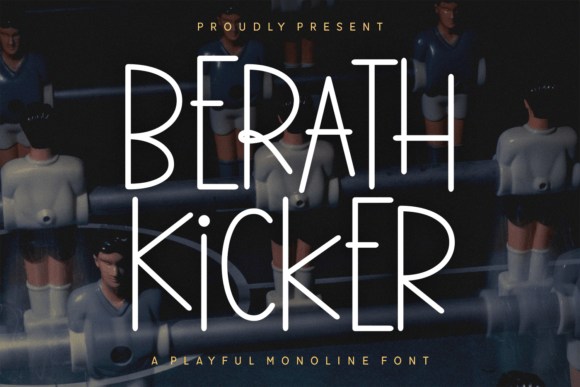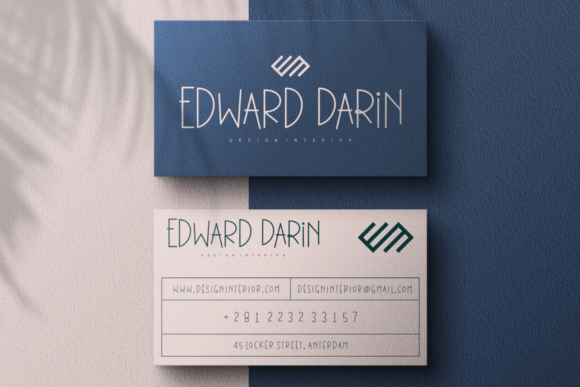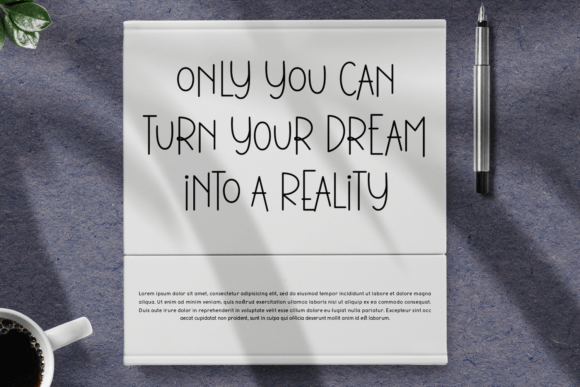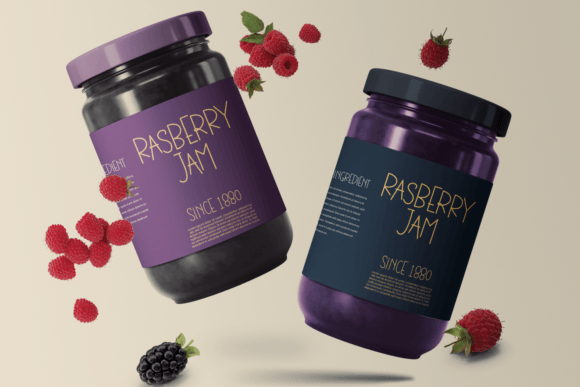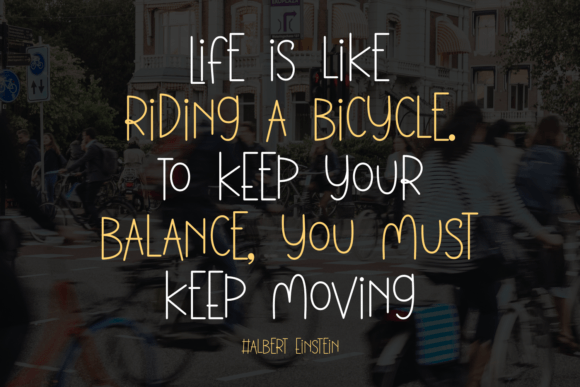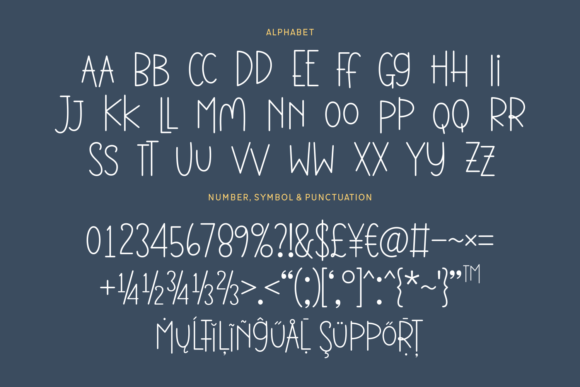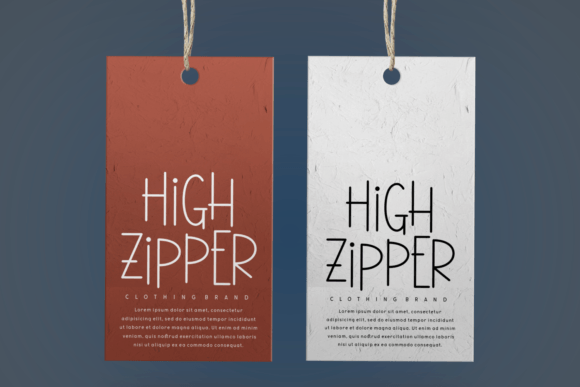
Berath Kicker Font
Add Playful Modern Style with Berath Kicker Font
Berath Kicker Font is a playful and modern monoline handwritten typeface designed to bring a quirky and fun vibe to your creative projects. With its thin-lettered style, this font adds a unique personality that makes your work stand out. Whether you are designing business cards, invitations, labels, or packaging, Berath Kicker Font delivers a fresh and contemporary look.
Furthermore, its clean lines and balanced letterforms ensure that your designs look polished and professional, no matter the application.
Versatile Uses for Berath Kicker Font
Berath Kicker Font is ideal for a variety of design projects, such as:
• Business cards and corporate identity
• Wedding and event invitations
• Product labels and packaging
• Social media graphics and digital content
• Posters, flyers, and promotional materials
Thanks to its playful and modern monoline style, Berath KickerFont adds charm and sophistication to your designs.
It also features optimized kerning and spacing, ensuring your text is readable and visually appealing across various sizes and media.
Why Designers Choose Berath KickerFont
Designers and creatives appreciate Berath Kicker Font for its playful yet modern character. It adds a fun and fresh touch that elevates any project. Whether you’re a professional or a hobbyist, Berath KickerFont helps you create beautiful, engaging typography with ease.
Use Berath KickerFont to bring personality and style to your next creative idea.